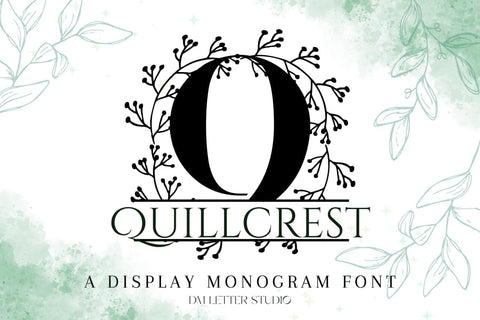
Quillcrest Split Monogram Font
Meet Quillcrest Split Monogram Font
Quillcrest Split Monogram Font turns any initial into a poised, name-ready emblem in seconds. Calm, calligraphic letterforms carry boutique elegance, while a precise horizontal split creates natural space for names, dates, or short words. Because spacing stays even and counters remain open, designs look polished on tiny tags, door hangers, tumblers, ornaments, menus, and statement wall art. Pair it with a clean sans or a light script and every layout stays readable and refined.
Where this split monogram font shines
Set one hero initial and place the family name inside the split for instant personalization. Next, try couple names for engagement gifts, venue names for signage, or short words like Home, Welcome, and Love for seasonal décor. Since the proportions favor clarity, files scale smoothly for Cricut, Silhouette, Glowforge, and laser projects. As a result, batch customization becomes fast and consistent across product lines and shop listings.
Design tips for Quillcrest Split Monogram
Keep the hero initial large and let white space breathe. Place the split at center or slightly low for a steady baseline. Choose a simple secondary font inside the split to protect legibility on small items. Because the style has subtle calligraphic grace, metallic foils, linen textures, pearlescent stocks, and natural woods add instant value. Keep names concise so the composition remains balanced and clear at thumbnail size.
Uppercase alphabet optimized for split monograms
Matching lowercase, numbers, punctuation
Curves tuned for engraving, foil, laser cutting, and clean vinyl paths
Why makers choose this split monogram font
You want fast personalization that still feels bespoke. Quillcrest Split Monogram Font delivers consistent, high-end name designs in minutes while keeping your shop’s visual language cohesive from gifts to signage.